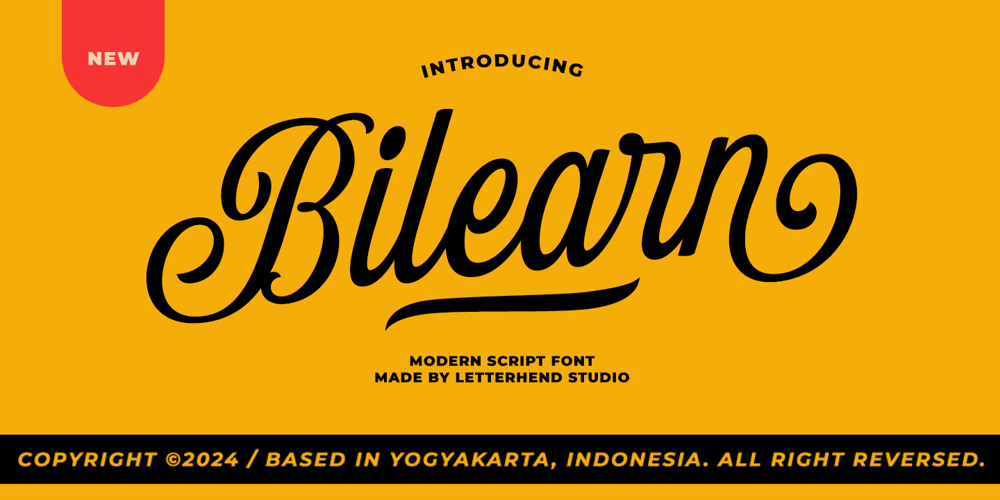
Bilearn
Bilearn font
Bilearn Font Family was designed by Hendry Juanda and published by Letterhend. Bilearn contains 1 styles and family package options. Please welcome our newest script typeface, Bilearn Script, a modern script typeface with unique alternates and swashes. This font perfectly made to be applied especially in logo, and the other various formal forms such as invitations, labels, logos, magazines, books, greeting / wedding cards, packaging, fashion, make up, stationery, novels, labels or any type of advertising purpose.Features : Uppercase & lowercase Numbers and punctuation Alternates Character Multilingual support PUA encoded